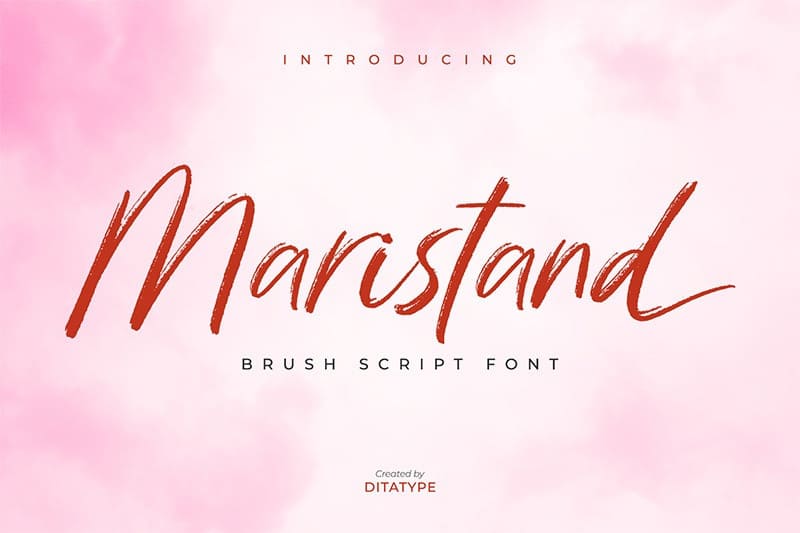
Maristand Brush Font
Introducing Maristand Brush Font, script with a natural rough dry brush strokes, and the stroke of hand quickly. This Typeface is a beautiful brush font manufactured by Dita type. It brings a elegant and attractive typeface. Made for any professional project branding. It is the best for logos, branding, wedding and quotes.